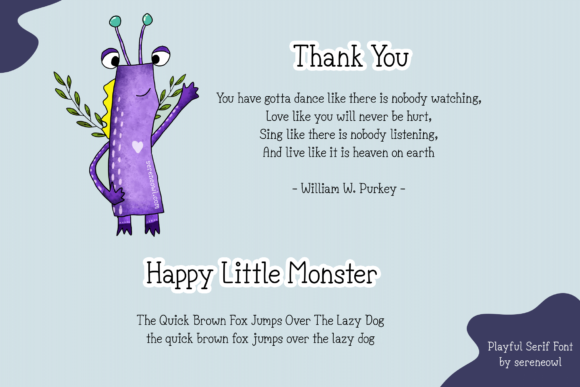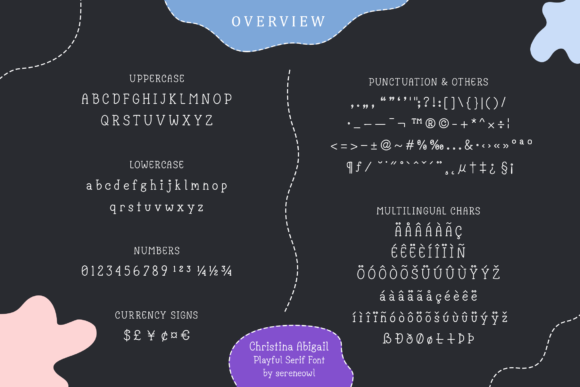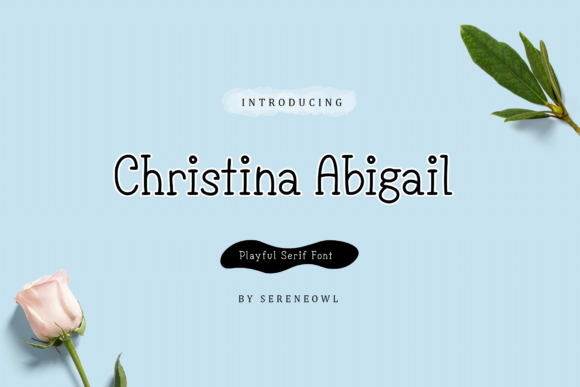
Introducing Christina Abigail Font: The Ultimate Choice for Clean and Casual Designs
Are you a designer or crafter looking for a font that exudes simplicity, elegance, and a touch of casual charm? Look no further than the Christina Abigail Font. This beautiful serif font is designed to provide an undeniably clean feel, making it perfect for a wide range of design applications, from logos and branding to packaging design and more.
What Makes Christina Abigail Font Stand Out?
Christina Abigail Font is a simple and casual serif font that boasts a unique combination of characteristics, setting it apart from other fonts in its category. Here are some of the key features that make this font a standout choice:
- Clean and Elegant Design: The Christina Abigail Font features a clean and elegant design that is perfect for creating sophisticated and professional-looking designs.
- Simple and Casual: Despite its elegance, this font has a simple and casual feel that makes it perfect for a wide range of design applications, from logos and branding to packaging design and more.
- Serif Font: As a serif font, Christina Abigail Font features small lines or flourishes at the ends of the letters, giving it a classic and timeless look.
- Versatile: This font is incredibly versatile and can be used in a variety of design applications, including logos, branding, packaging design, and more.
Christina Abigail Font is an excellent choice for designers and crafters who want to create professional-looking designs with a personal touch. Here are some of the ways you can use this font:
- Logo Design: Use Christina Abigail Font to create simple, yet effective logos that communicate your brand’s message.
- Branding: This font is perfect for creating branding materials, such as business cards, letterheads, and brochures.
- Packaging Design: Christina Abigail Font is a great choice for packaging design, adding a touch of elegance and sophistication to your product packaging.
- Digital Designs: This font can also be used in digital designs, such as social media graphics, website headers, and more.
Benefits of Using Christina Abigail Font
By using Christina Abigail Font, you can enjoy a range of benefits, including:
- Improved Readability: The clean and simple design of this font makes it easy to read, even at small sizes.
- Enhanced Professionalism: Christina Abigail Font gives your designs a professional and polished look, perfect for businesses and brands.
- Increased Versatility: This font can be used in a wide range of design applications, making it a great addition to your font library.
- Unique and Creative: Christina Abigail Font has a unique and creative feel that sets it apart from other fonts.
In conclusion, Christina Abigail Font is an excellent choice for designers and crafters who want to create clean, elegant, and professional-looking designs. With its simple and casual serif design, this font is perfect for a wide range of design applications, from logos and branding to packaging design and more. By using Christina Abigail Font, you can enjoy improved readability, enhanced professionalism, increased versatility, and a unique and creative feel.